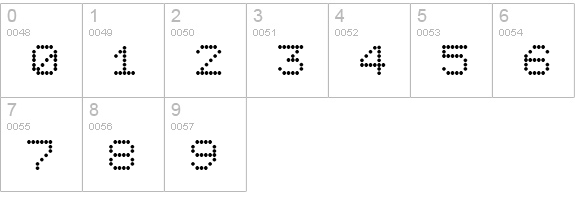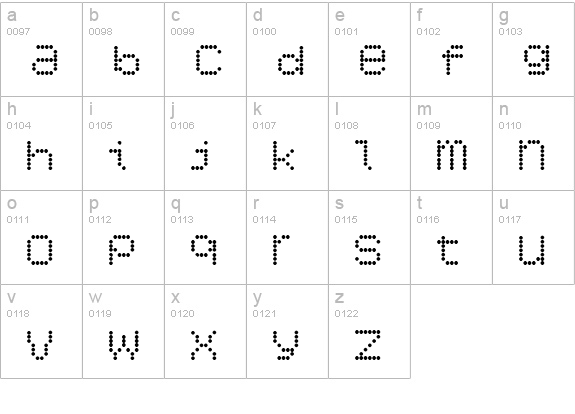
6x7oct Alternate Bold is a strong, high-contrast variant in the 6x7oct typeface family \xE2\x80\x94 well suited to headlines, attention-grabbing titles, and strong calls-to-action.
The 6x7oct Alternate Bold font is a modern and eye-catching typeface that is perfect for creating bold and impactful designs. Its unique octagonal shapes and alternate characters add a touch of creativity and personality to any project. This versatile font is ideal for a wide range of design applications, from posters and headlines to logos and branding. What's even better is that the 6x7oct Alternate Bold font is available for free download at FontsMarket.com. So, you can easily access this stylish font and use it in your projects without any cost. Don't miss out on the opportunity to enhance your designs with this striking typeface that will surely make a statement. Download the 6x7oct Alternate Bold font today and take your designs to the next level!